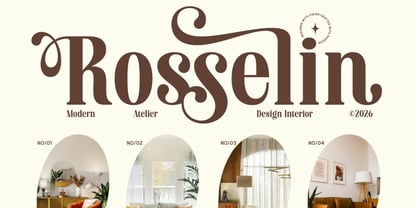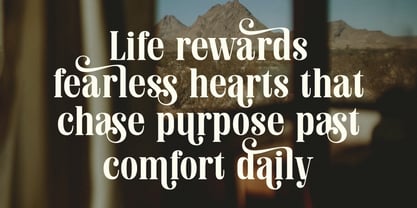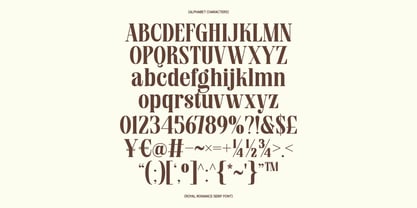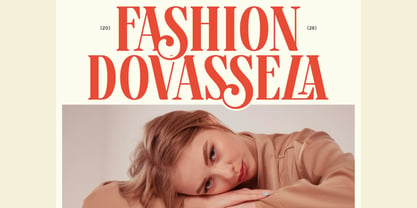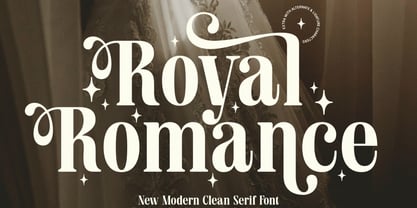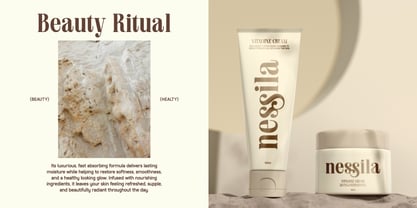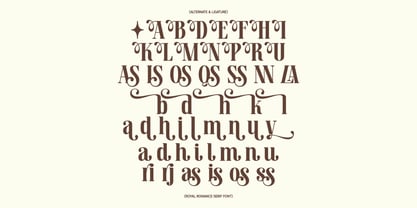
Royal Romance
The Royal Romance Font Family was designed by Firman Maulana Ihsan and published by Claymoon Lab Studio. Royal Romance contains 1 styles. More about this family
Royal Romance — Elegant Modern Serif Font
Elevate your designs with Royal Romance, a modern and clean serif font that seamlessly blends timeless elegance with a fresh contemporary touch. Designed with refined letterforms, graceful curves, and balanced proportions, this typeface brings a sophisticated personality to every digital canvas. Whether you are crafting high-end branding or editorial layouts, Royal Romance delivers a luxurious aesthetic that instantly captivates.
Featuring a stunning collection of specially crafted alternates and beautifully flowing ligatures, this font allows you to create bespoke, custom-feeling typography with ease. Perfect for fashion magazines, digital wedding designs, beauty product branding, and premium web design, Royal Romance ensures your creative projects exude class and elegance.
What's Included:
* Full Character Set: Uppercase, lowercase, numerals, and standard punctuation.
* Alternates & Ligatures: Unique decorative characters and beautifully joined letterforms for a custom typographic finish.
* Standard Latin Support: Broad language coverage for international creative projects.
Perfect For These Projects:
* Luxury Branding & Logo Design: Crafting high-end brand identities, premium wordmarks, and boutique logotypes with a sophisticated personality.
* Digital Wedding & Event Typography: Designing elegant digital invitations, save-the-dates, and romantic event announcements.
* Editorial & Magazine Layouts: Composing stylish headlines, fashion editorial spreads, and digital publication covers.
* Beauty & Cosmetic Branding: Developing chic typography for skincare packaging design, beauty brand guidelines, and elegant digital campaigns.
* Web Design & UI: Enhancing interior design portfolios, luxury hotel websites, and premium digital interfaces with high-quality web typography.